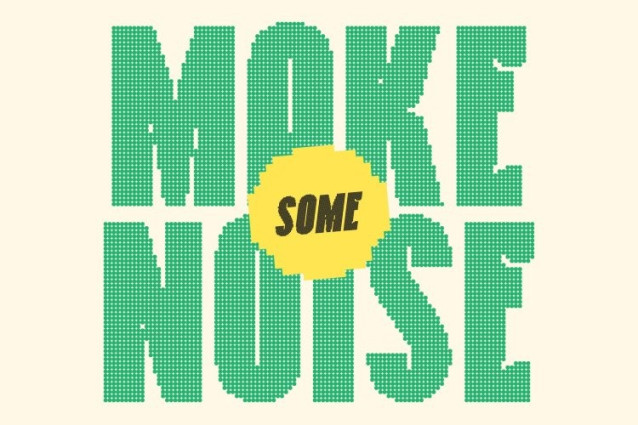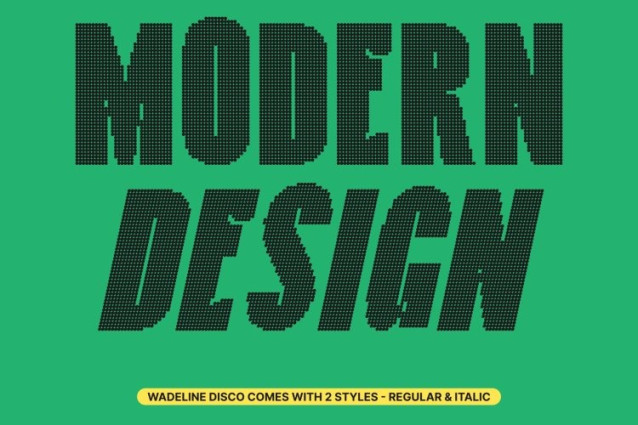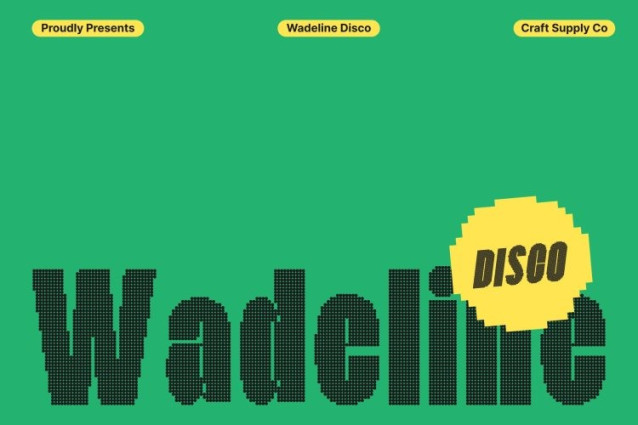
Wadeline Disco Font
Wadeline Disco Font This is a sans serif font defined by its condensed, bold construction and strong industrial aesthetic. Each letter features firm, rigid shapes that convey power, precision, and technical confidence. This tough, structured design makes the font ideal for projects that require a commanding, masculine, and modern visual presence.
Industrial Aesthetic for Strong, Technical Appeal
The sturdy, engineered letterforms give a sharp and authoritative character. Its modern industrial feel enhances clarity and impact, ensuring your text stands out in bold display settings. Whether used in large headlines or branding elements, this font adds a sense of structure and strength to every design.
Disco Effect for Dynamic Sparkle and Glamorous Vibration
Balancing its industrial toughness, the disco effect introduces sparkle, movement, and visual energy. This shimmering layer adds a glamorous twist to the otherwise rigid shapes, creating a dynamic contrast that makes the font visually captivating. The combination of engineered precision and sparkling flair makes this font both powerful and stylish.
Perfect for Posters, Branding, Headlines, and Creative Projects
This font excels in posters, branding, headlines, editorial graphics, digital artwork, and modern creative projects. Its blend of bold condensed forms, industrial strength, and disco sparkle ensures designs that are bold, modern, and eye-catching.